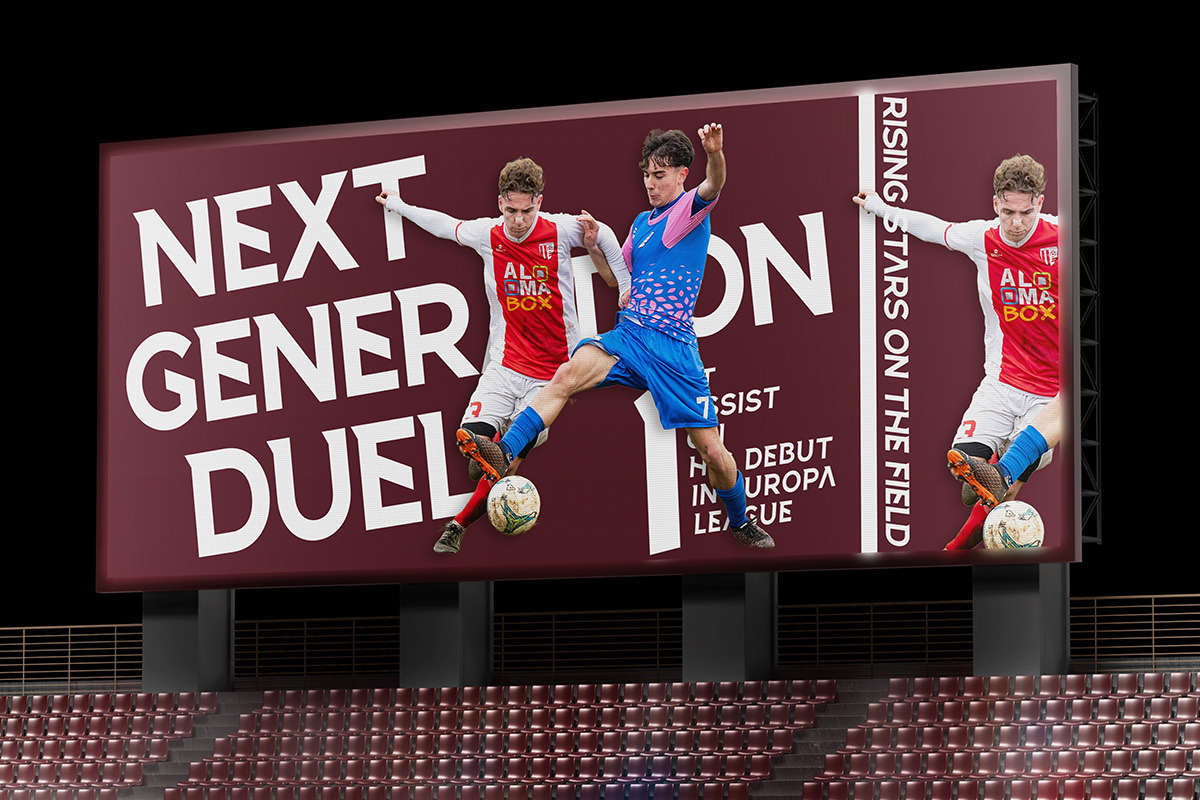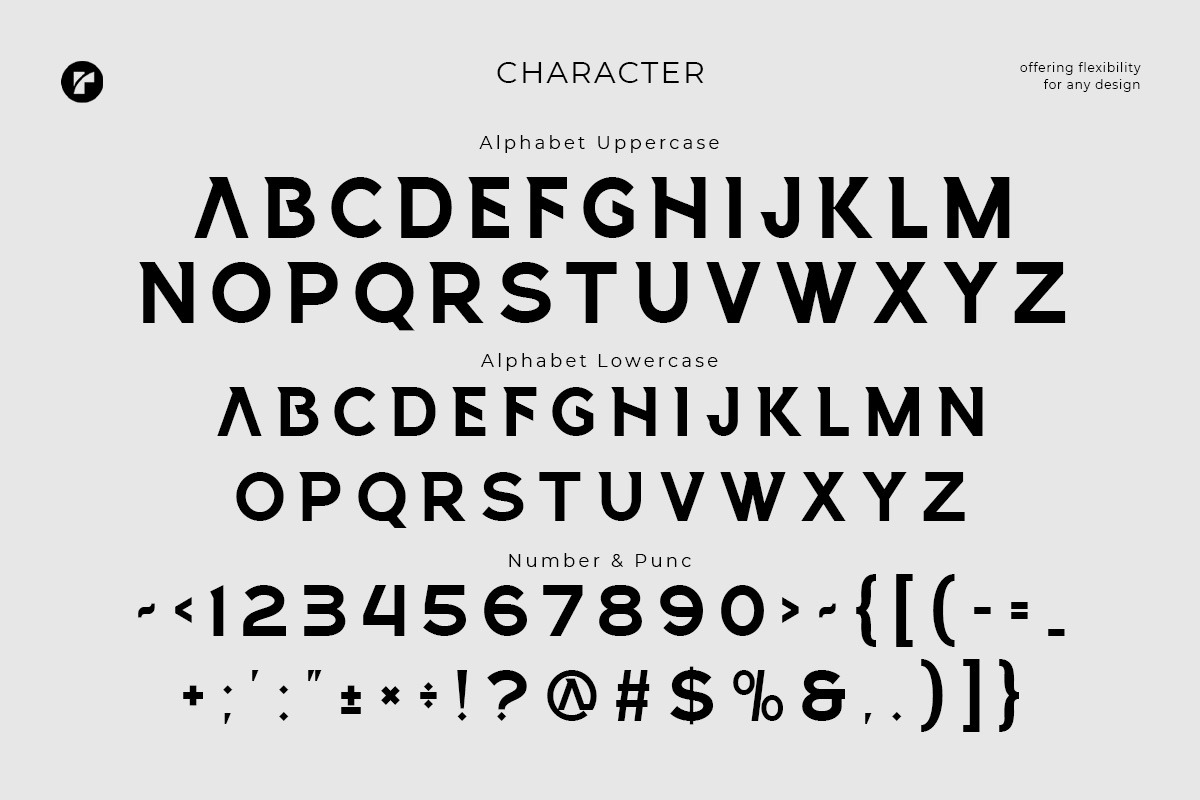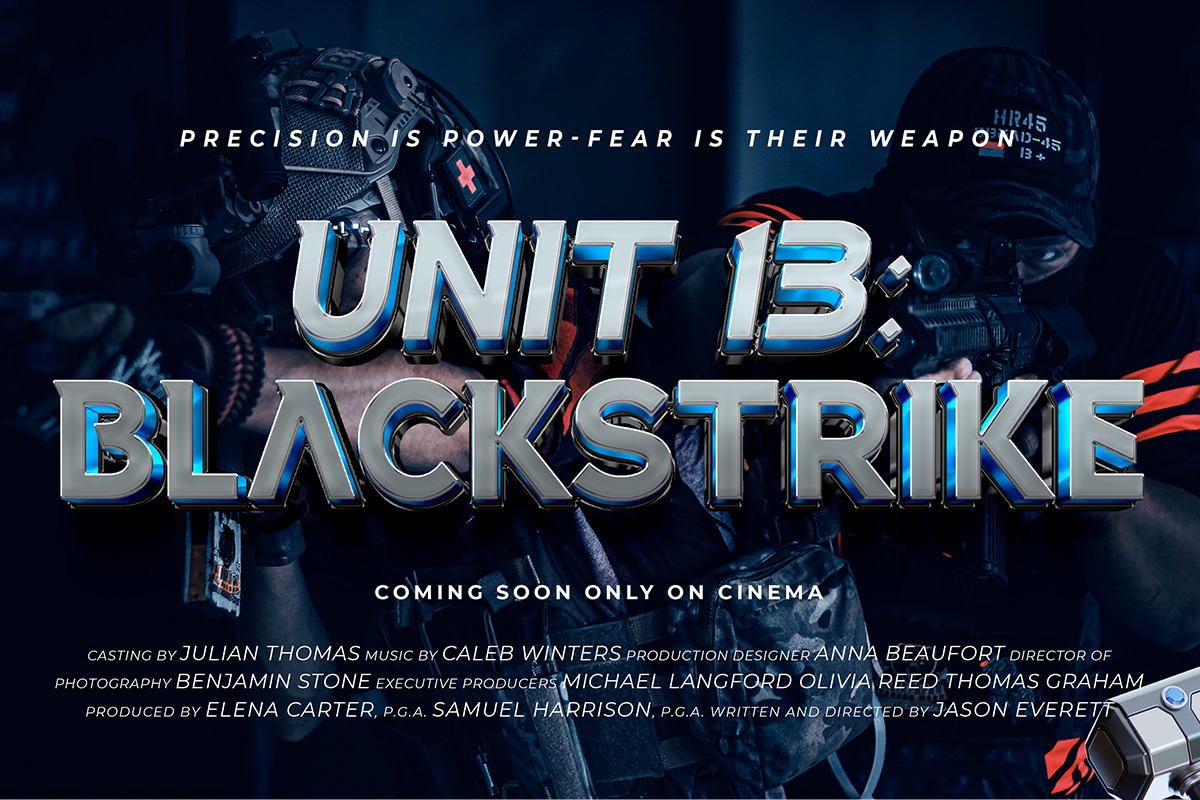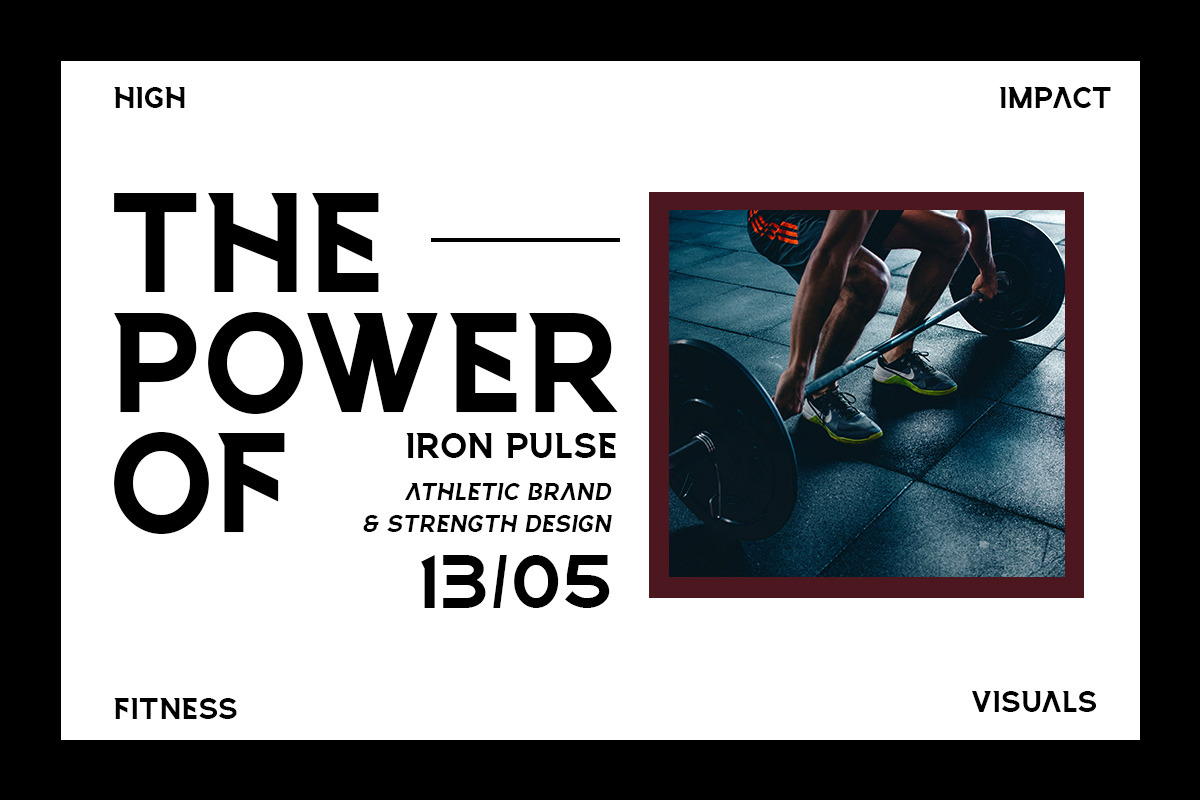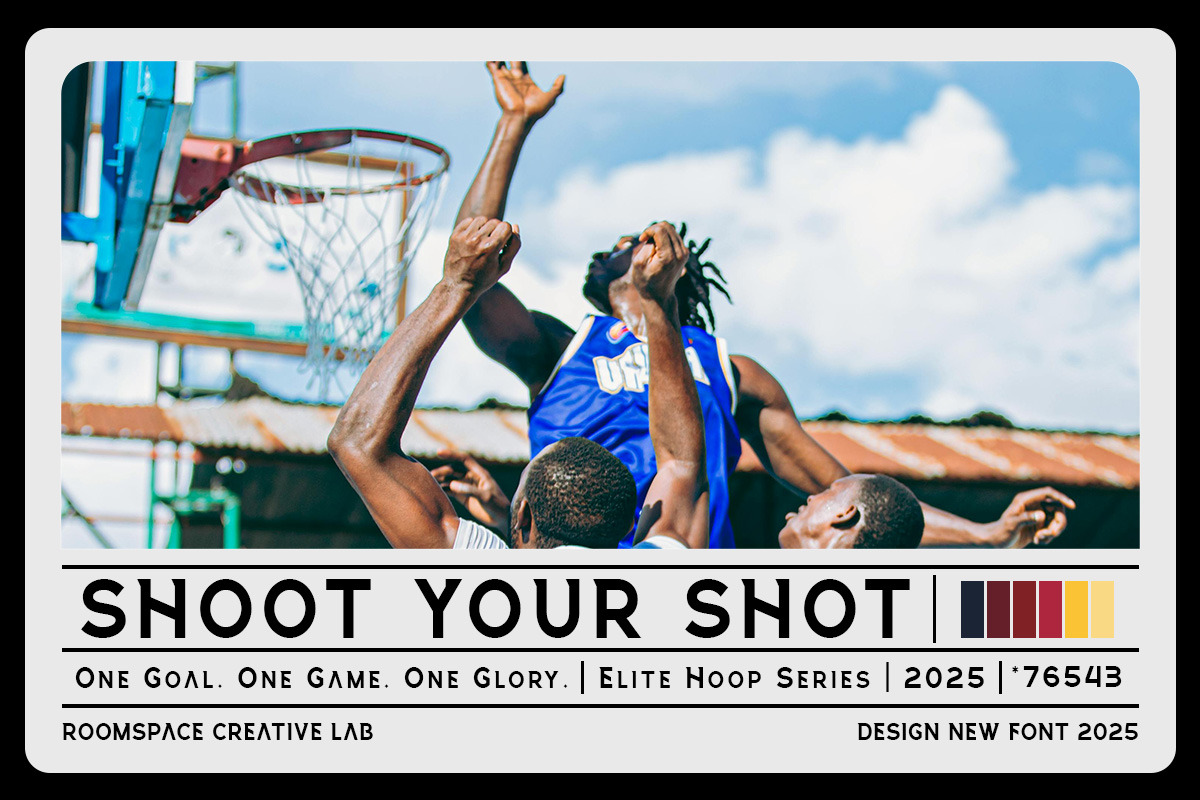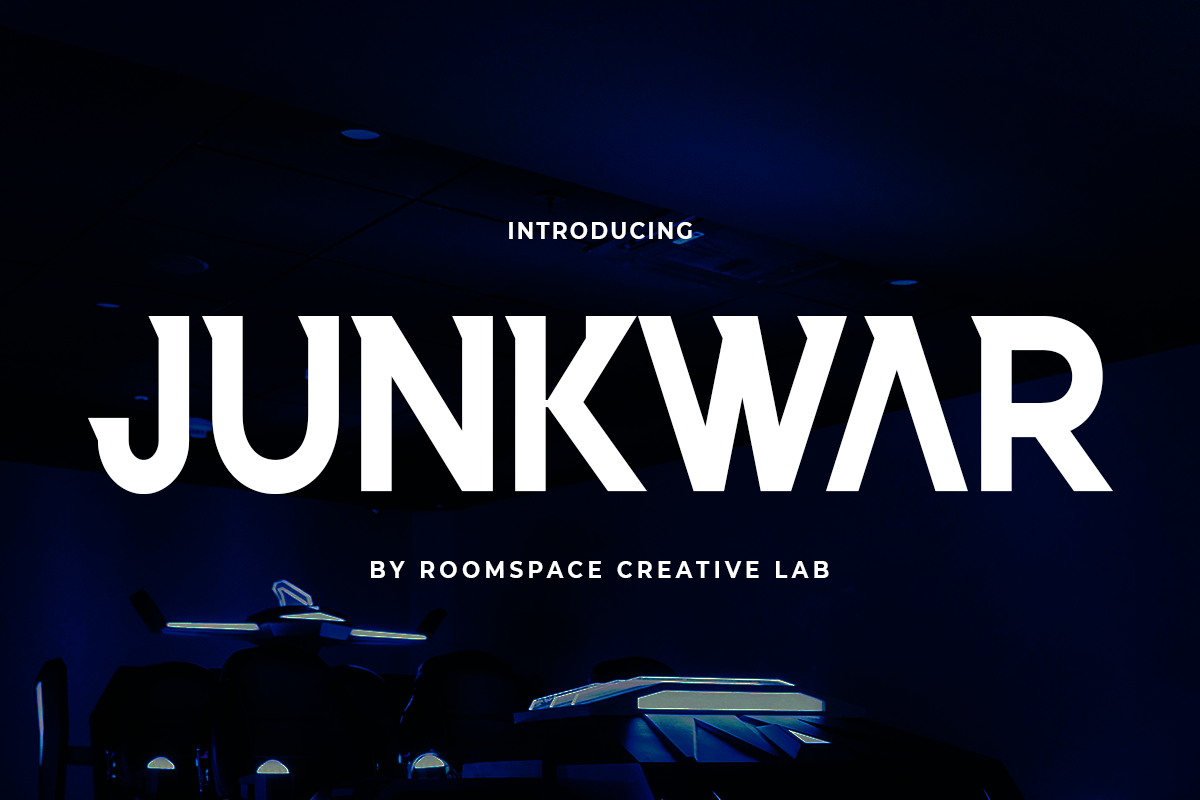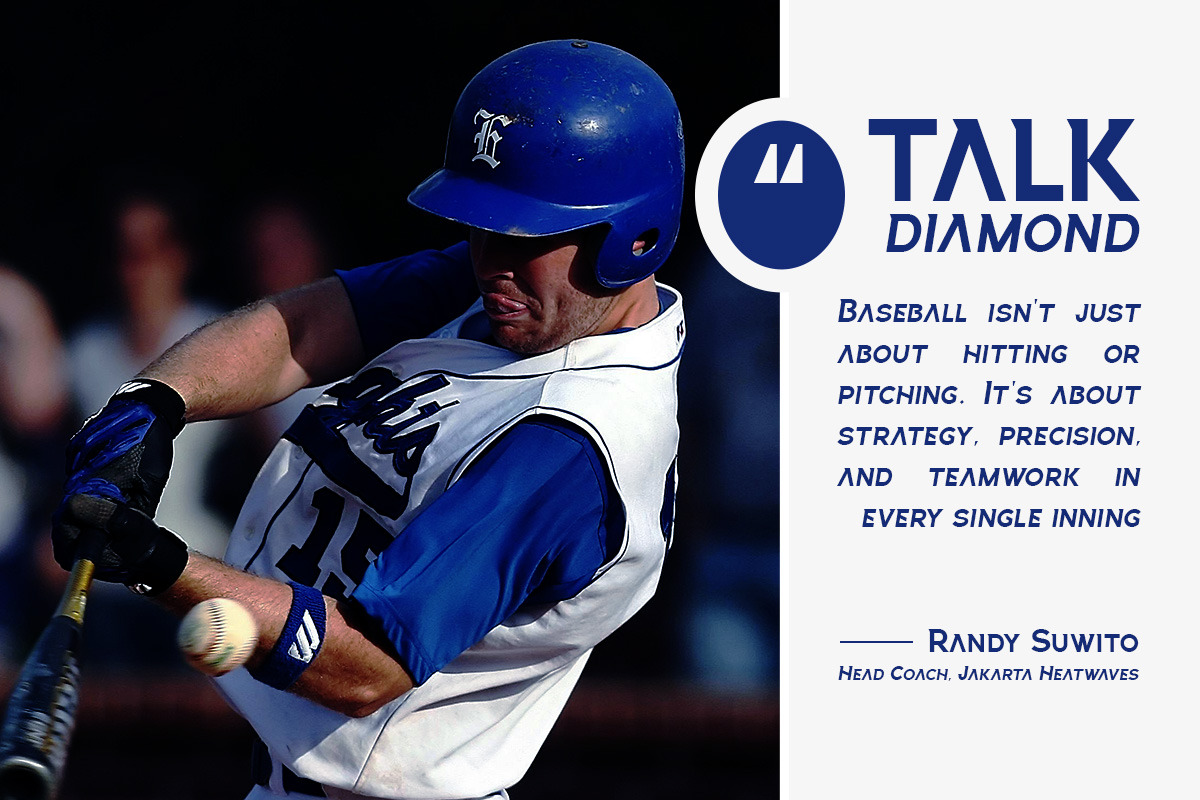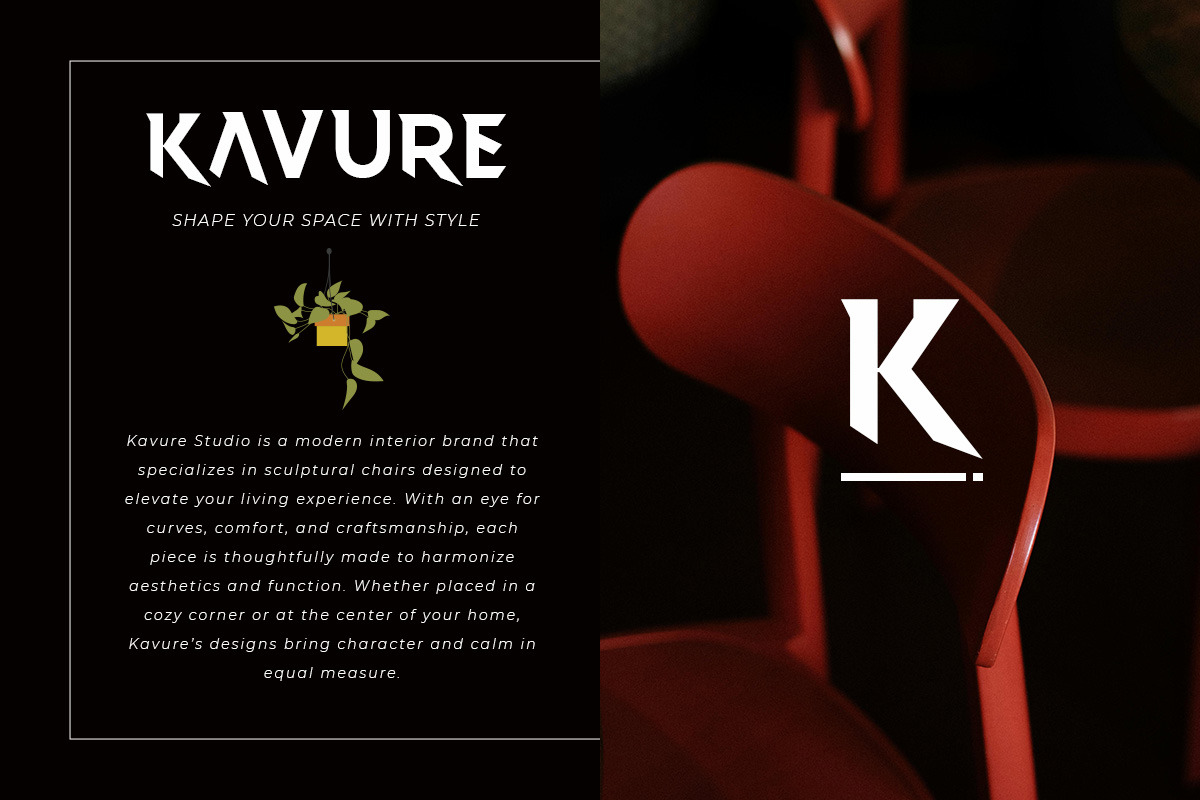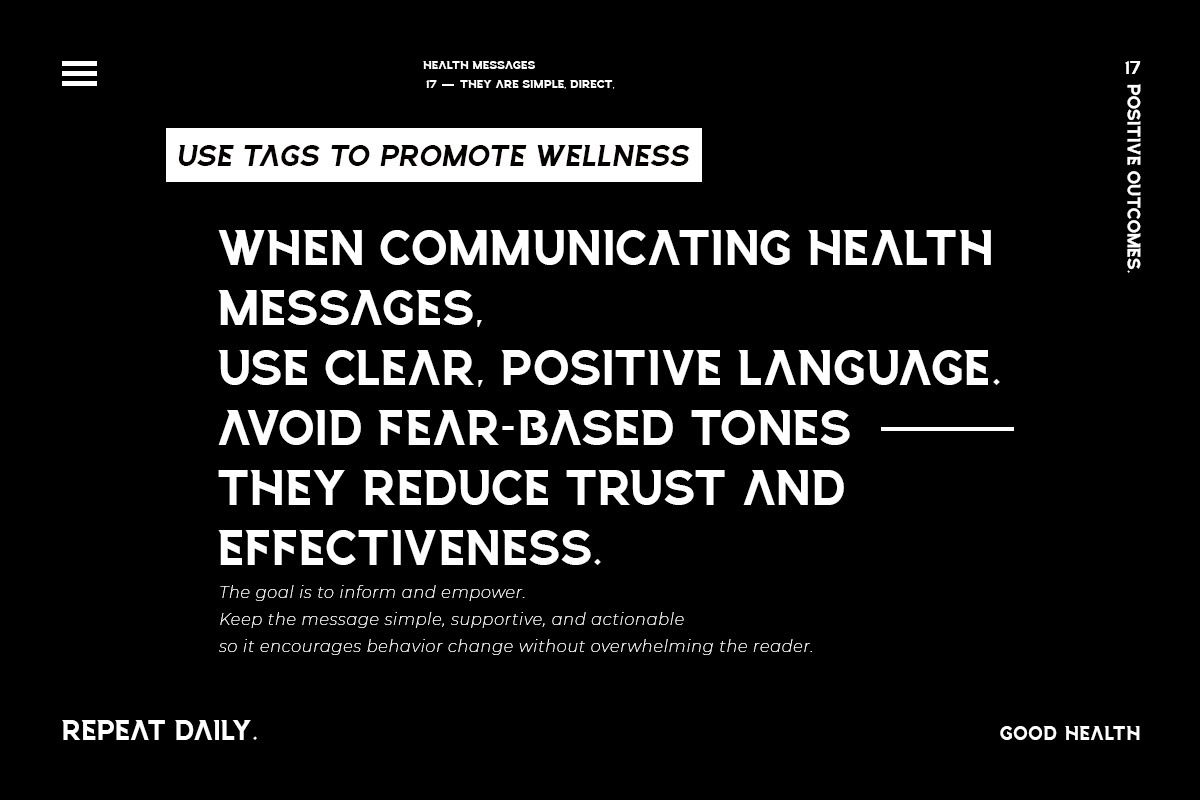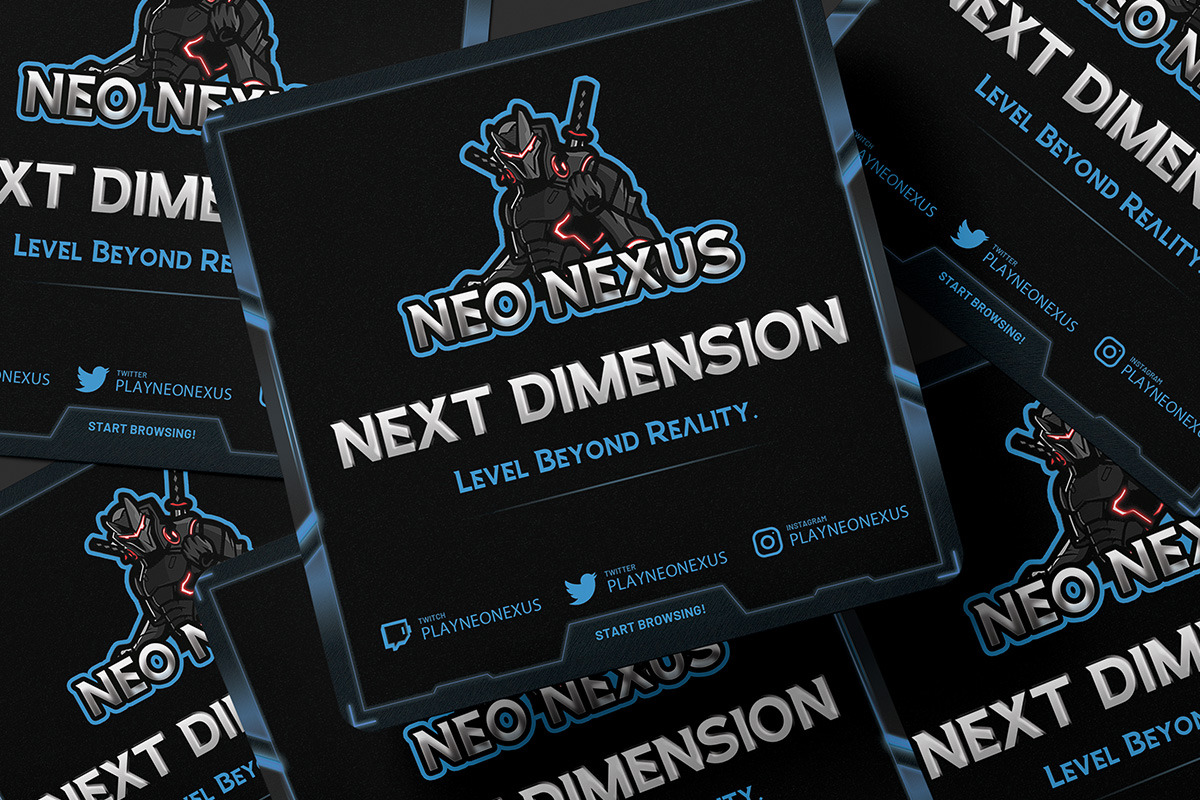
Junkwar - Modern Elegant Poster Font
Junkwar—a bold and dynamic game font where modern energy meets refined precision. Designed to capture attention, Junkwar blends sharp edges with a clean, contemporary aesthetic, making it the perfect choice for designs that demand impact.
Each letter is meticulously crafted to deliver clarity and strength, giving your projects a confident and striking visual presence. Whether you’re working on gaming posters, digital art, bold headlines, or branding visuals, Junkwar brings a powerful energy to every word.
This font is ideal for designers and creators who want a font that’s bold, modern, and unforgettable. Junkwar is more than just a typeface—it’s a statement for those who dare to stand out.